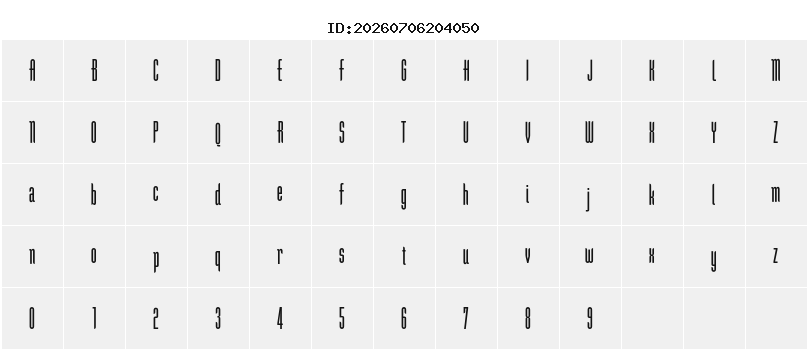
Demonstrator Preview
• Font Name: Demonstrator
• Full Font Name: Demonstrator
• PostScript Name: Demonstrator
About Demonstrator.otf
Demonstrator.otf is a modern, elegant sans-serif font designed for ultimate readability and visual harmony. Perfect for branding, headlines, web design, and print materials.